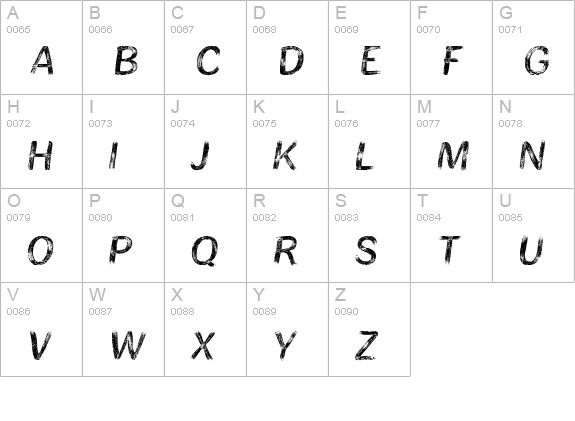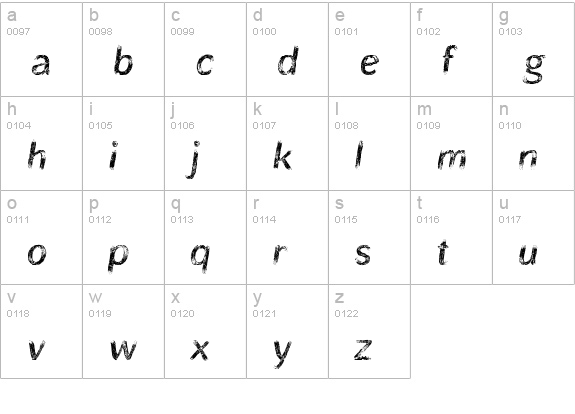
Bristles Font Details
Bristles font is a unique and stylish typeface that adds a touch of creativity to any design project. With its sharp edges and intricate details, this font exudes a sense of modernity and sophistication. The jagged bristles of the letters give it a dynamic and energetic feel, making it perfect for eye-catching headlines or bold statements. What sets Bristles font apart is not just its striking appearance, but also the fact that it is available for free. Yes, you read that right - this stunning font can be downloaded at no cost from FontsMarket.com. Whether you're a designer looking to add some flair to your work or a creative looking for a fresh new font to play with, Bristles font is the perfect choice. Don't miss out on this fantastic opportunity to elevate your designs with this fantastic free font.